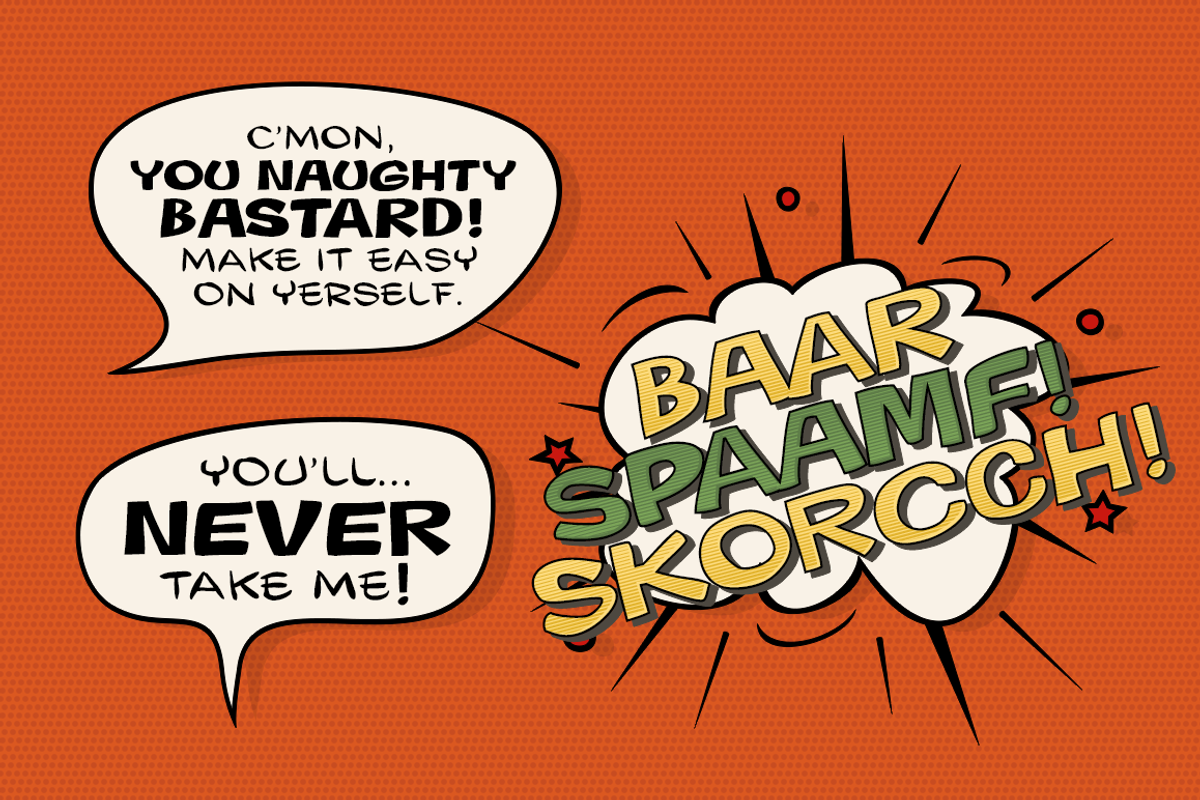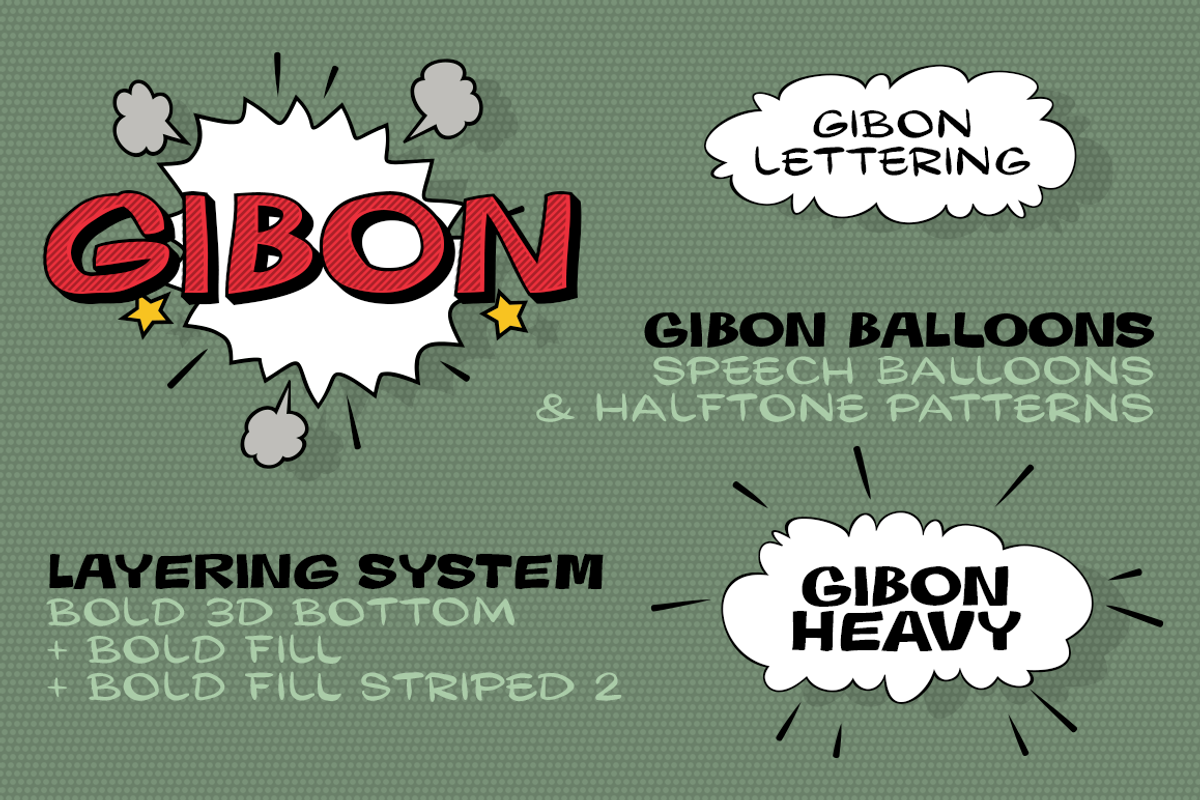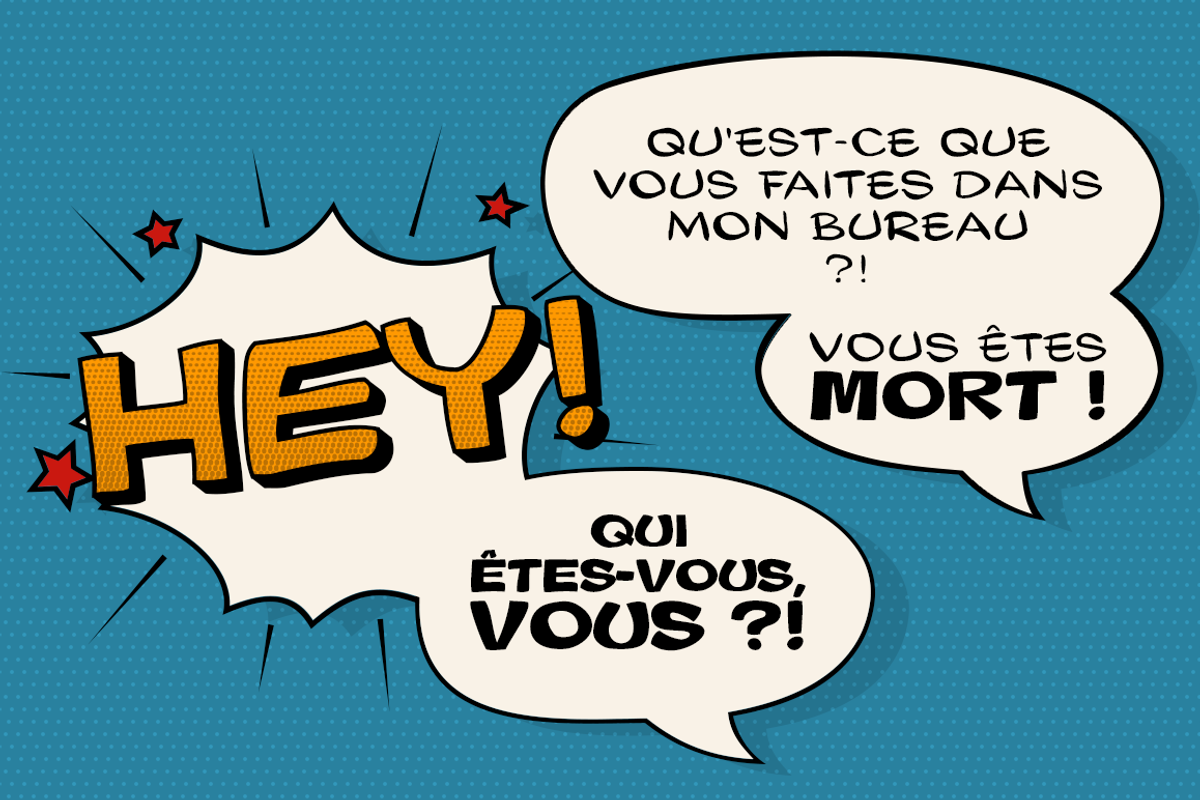
Gibon Font Family
Gibon Font Family by Juraj Chrastina is a font selected for branding, posters, packaging, typography.
- The OpenType contextual alternate feature is set to automatically apply the random effect using two sets of glyphs.
- To easily access alternate characters they are encoded as lowercase letters.
- Type the uppercase "I" to access the crossbar "I" and the lowercase "i" to access the crossbar-less "I".
- Gibon Balloons Regular
- Gibon Bold
- Gibon Bold Fill Bold
- Gibon Bold Outline Bold
- Gibon Bold Shadow Bold
- Gibon Heavy
- Gibon Bold 3D Bold
- Gibon Bold 3D Bottom Bold
- Gibon Bold Bottom Bold
- Gibon Bold Fill Gradient Bold
Why Gibon Font Family is worth a look
Gibon Font Family by Juraj Chrastina fits naturally into Branding, posters, packaging, typography.